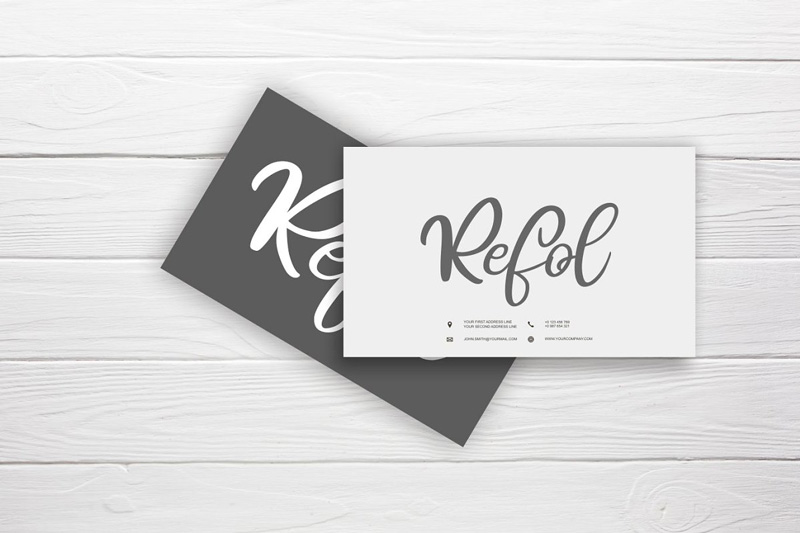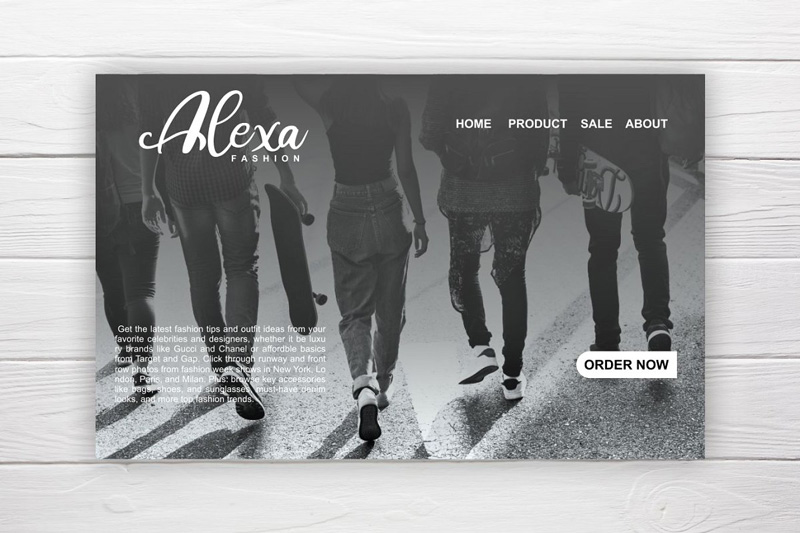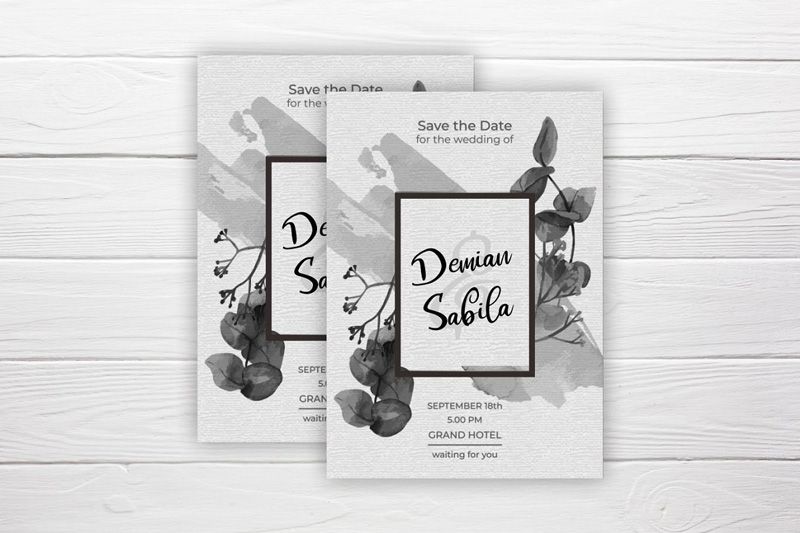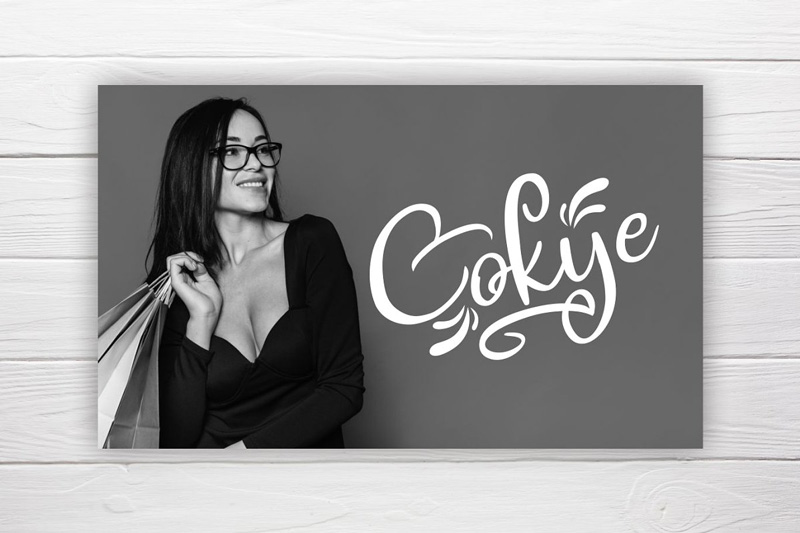
Hibes Soft Script Font
If you are a graphic designer then I am recommending you this font to showcase your idea into designs. Hibes soft is a calligraphy style script font. you can use it for feminine and luxury design purposes.
• Tons of glyphs
• Alternates and Ligatures
• Punctional